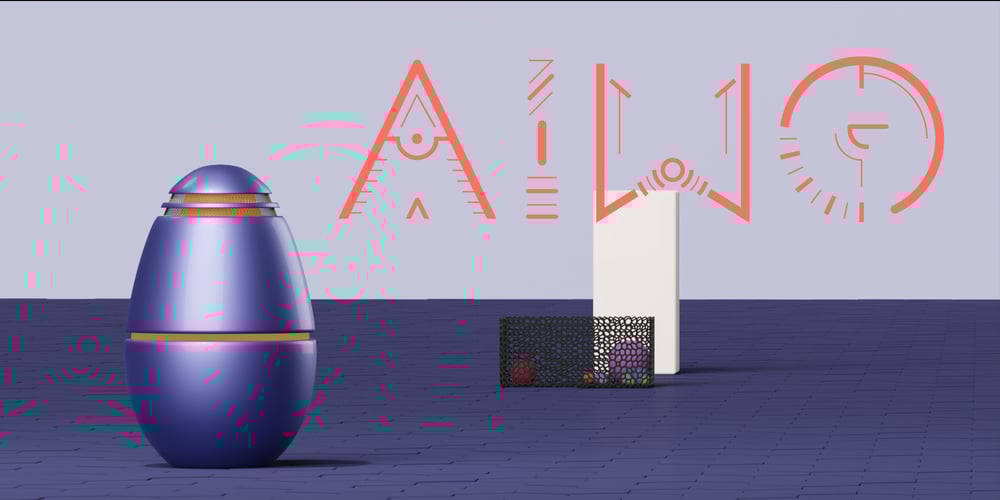
Zura
Zura font
Zura Font Family was designed by Pekka Kabongo and published by Caoni Studio. Zura contains 1 styles and family package options. Zura’s font family design draws its inspiration from nature and a tribal style. The use of geometrical expression emotes a technological undertone.Opentype features include:Old style numeralsCase sensitive forms